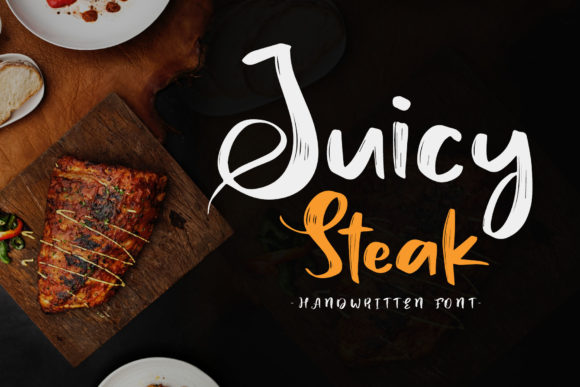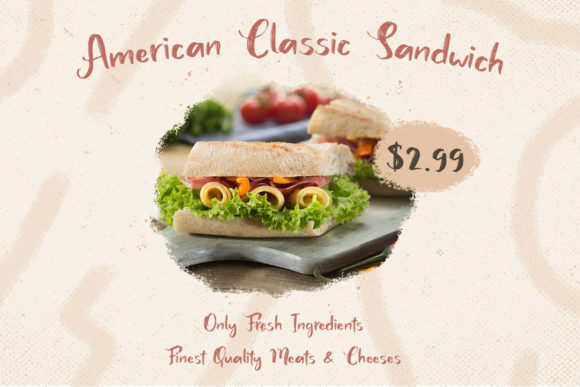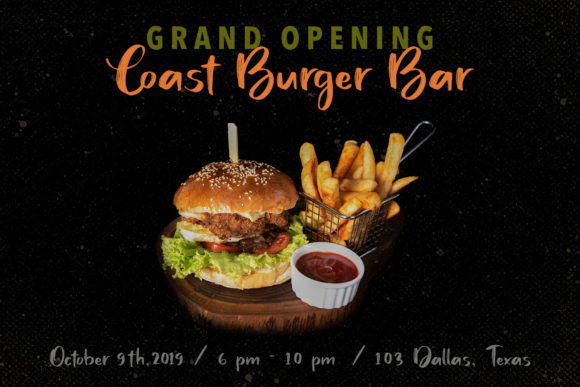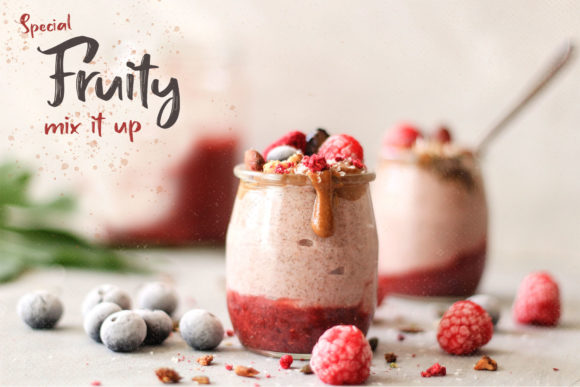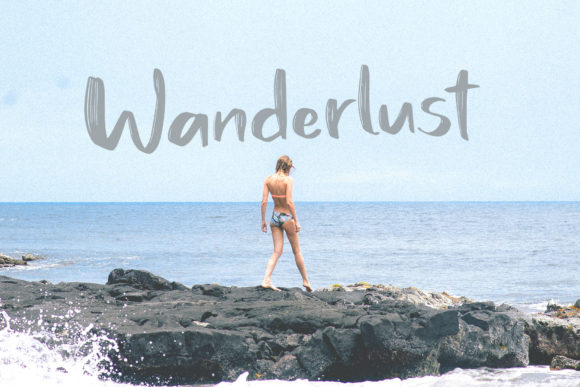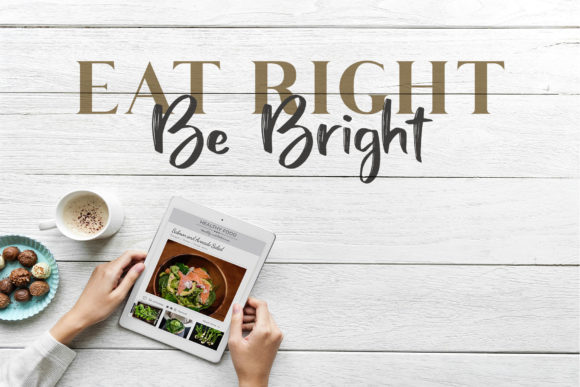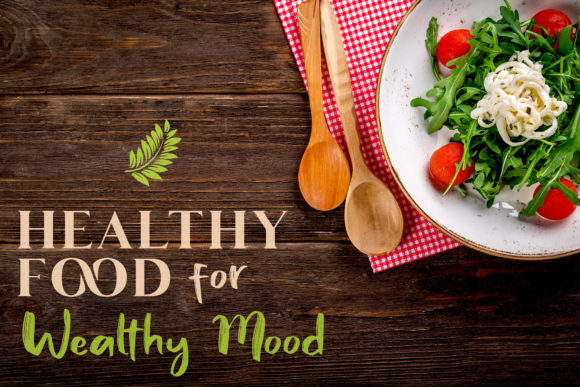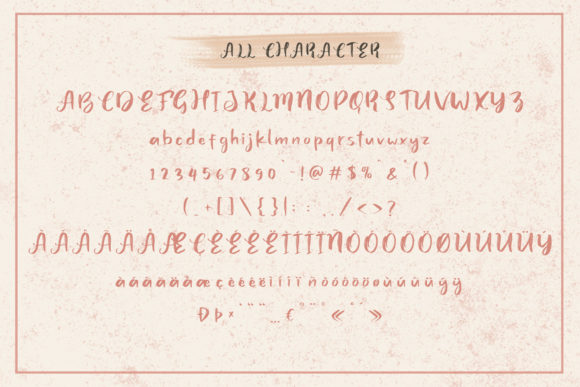
Juicy Steak Font
About Juicy Steak Font
The Juicy Steak is an amazing handwritten script. It was based on the expressions of real handwriting and lets you transform type into an exciting and beautiful piece of work. The irregular, hand-lettered look adds a real human touch to things and comes along with a lot of loving details.
Its alternates give you the possibility to build your text almost like handwriting with all the charming imperfections and variations that a real handwriting has. Bravely will work perfectly for fashion, e-commerce brands, trend blogs, wedding boutiques or any business that wants to appear upscale and chic.